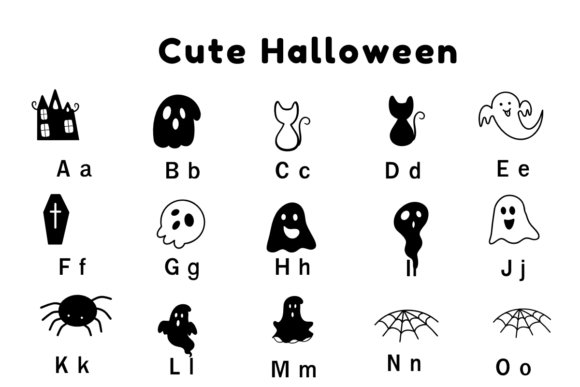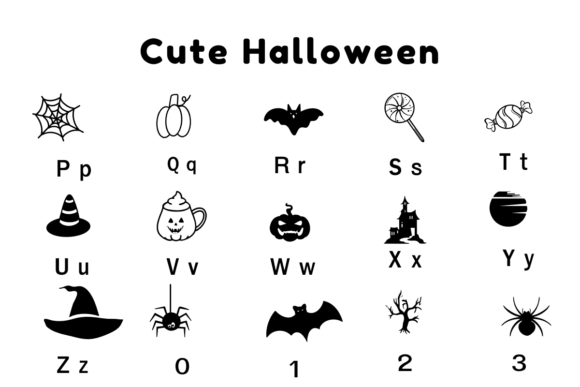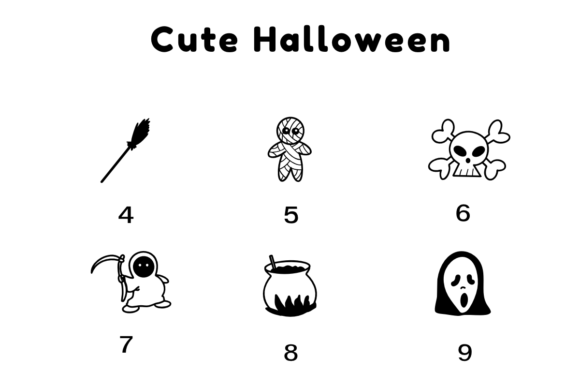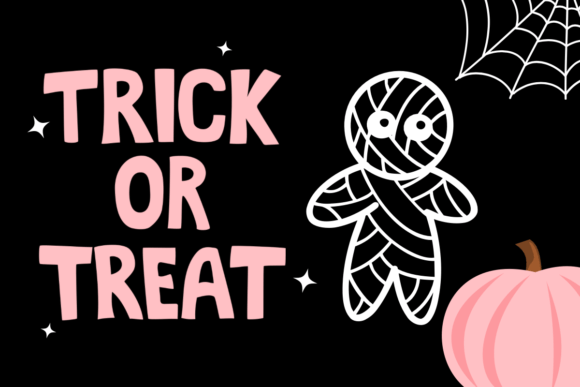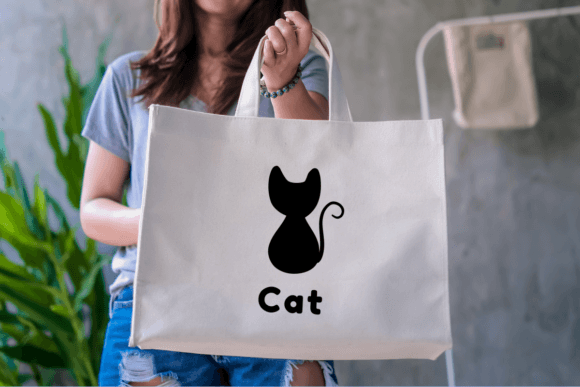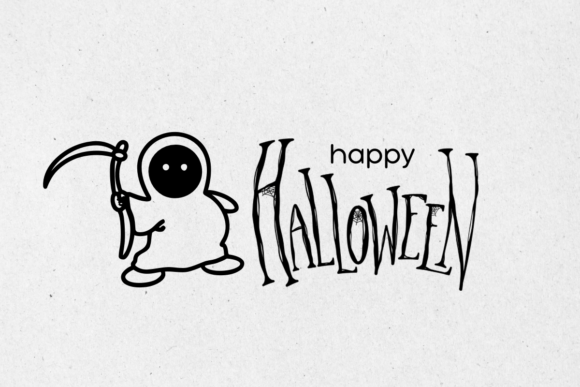
Cute Halloween Font: Add a Spooky Touch to Your Halloween Party Invitations and Decorations
Halloween is just around the corner, and what better way to get into the spooky spirit than with a Cute Halloween Font? This special font is filled with spooky images like pumpkins, ghosts, bats, and witches’ hats, making it perfect for adding a festive touch to your Halloween party invitations, decorations, or any Halloween-themed project.
What is a Cute Halloween Font?
A Cute Halloween Font is a unique and creative way to add a spooky touch to your Halloween designs. Each letter in the font is shaped like a different Halloween symbol, such as a pumpkin, ghost, bat, or witch’s hat. This font is perfect for designers and crafters who want to create spooky and fun Halloween-themed projects.
Features of a Cute Halloween Font
The Cute Halloween Font is a special font that comes with a range of features, including:
- Unique Lettering: Each letter in the font is shaped like a different Halloween symbol, making it perfect for adding a festive touch to your designs.
- Spooky Images: The font includes a range of spooky images, such as pumpkins, ghosts, bats, and witches’ hats, to add a touch of Halloween spirit to your designs.
- Festive Touch: The font is perfect for adding a festive touch to your Halloween party invitations, decorations, or any Halloween-themed project.
Uses of a Cute Halloween Font
A Cute Halloween Font can be used in a variety of ways, including:
- Halloween Party Invitations: Use the font to create spooky and fun Halloween party invitations that will set the tone for your party.
- Halloween Decorations: Use the font to create Halloween decorations, such as signs, banners, and garlands.
- Halloween Crafts: Use the font to create Halloween crafts, such as cards, gift tags, and DIY projects.
- Social Media Posts: Use the font to create spooky and fun social media posts that will get your followers in the Halloween spirit.
Tips for Using a Cute Halloween Font
Here are some tips for using a Cute Halloween Font:
- Choose the Right Font Size: Choose a font size that is large enough to be readable, but small enough to fit on your design.
- Add Images: Add images, such as pumpkins, ghosts, and bats, to your design to make it more festive.
- Be Creative: Don’t be afraid to get creative and try new things with your design.
A Cute Halloween Font is a great way to add a spooky touch to your Halloween party invitations, decorations, or any Halloween-themed project. With its unique lettering, spooky images, and festive touch, this font is perfect for designers and crafters who want to create spooky and fun Halloween-themed projects. So why not give it a try and see what spooky and fun designs you can create?